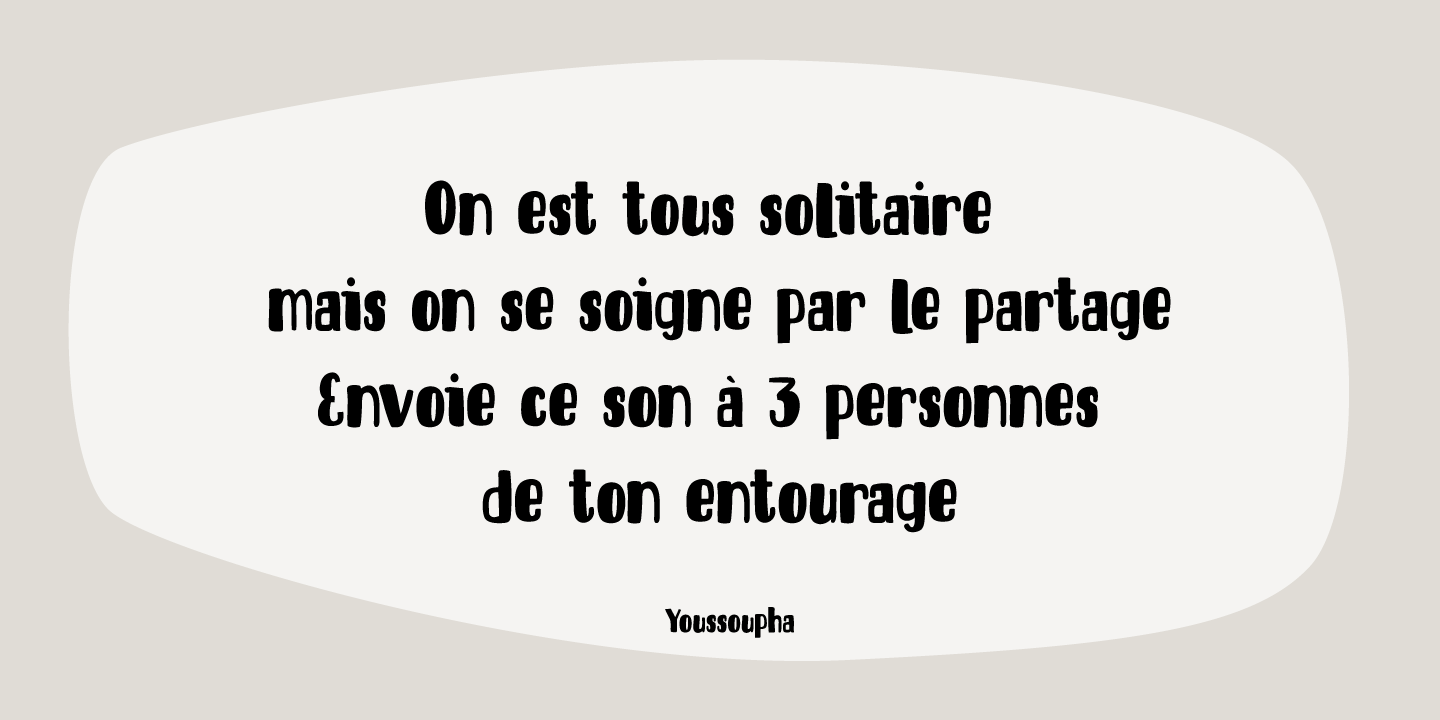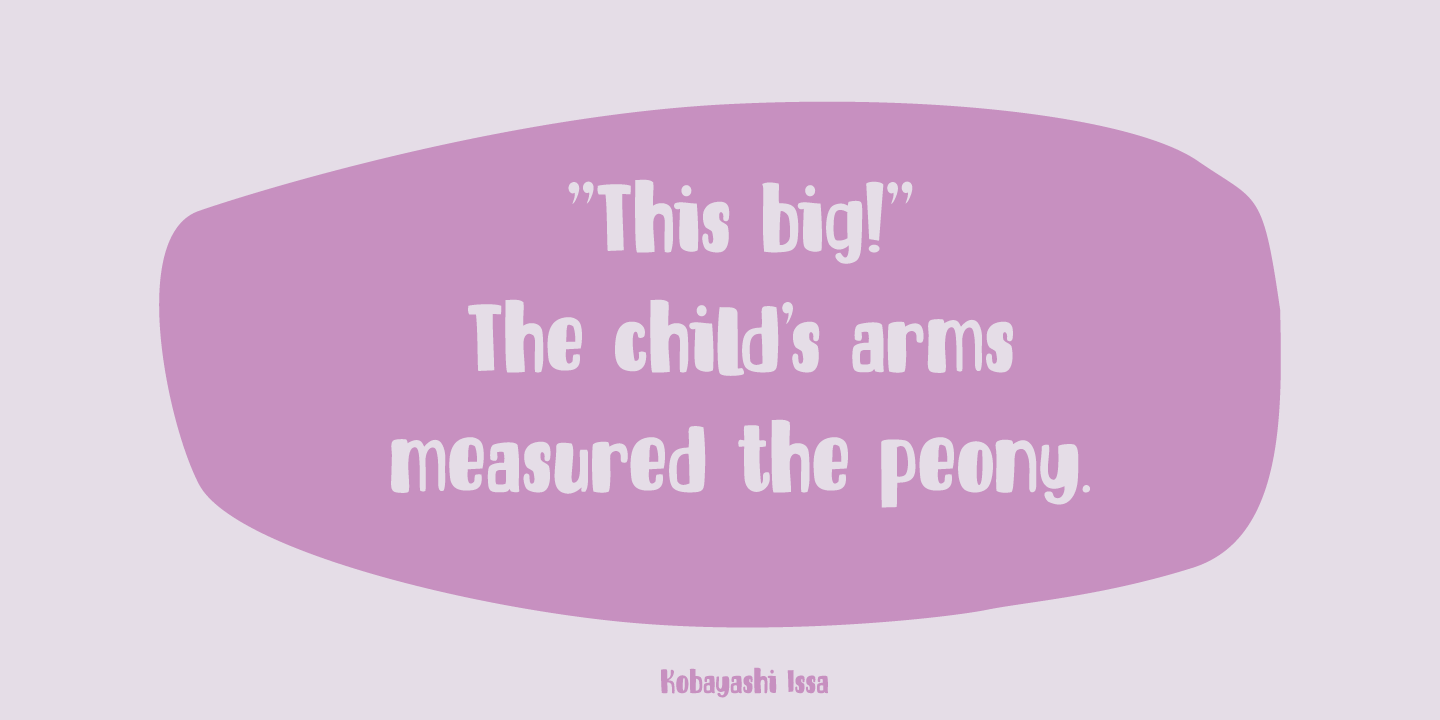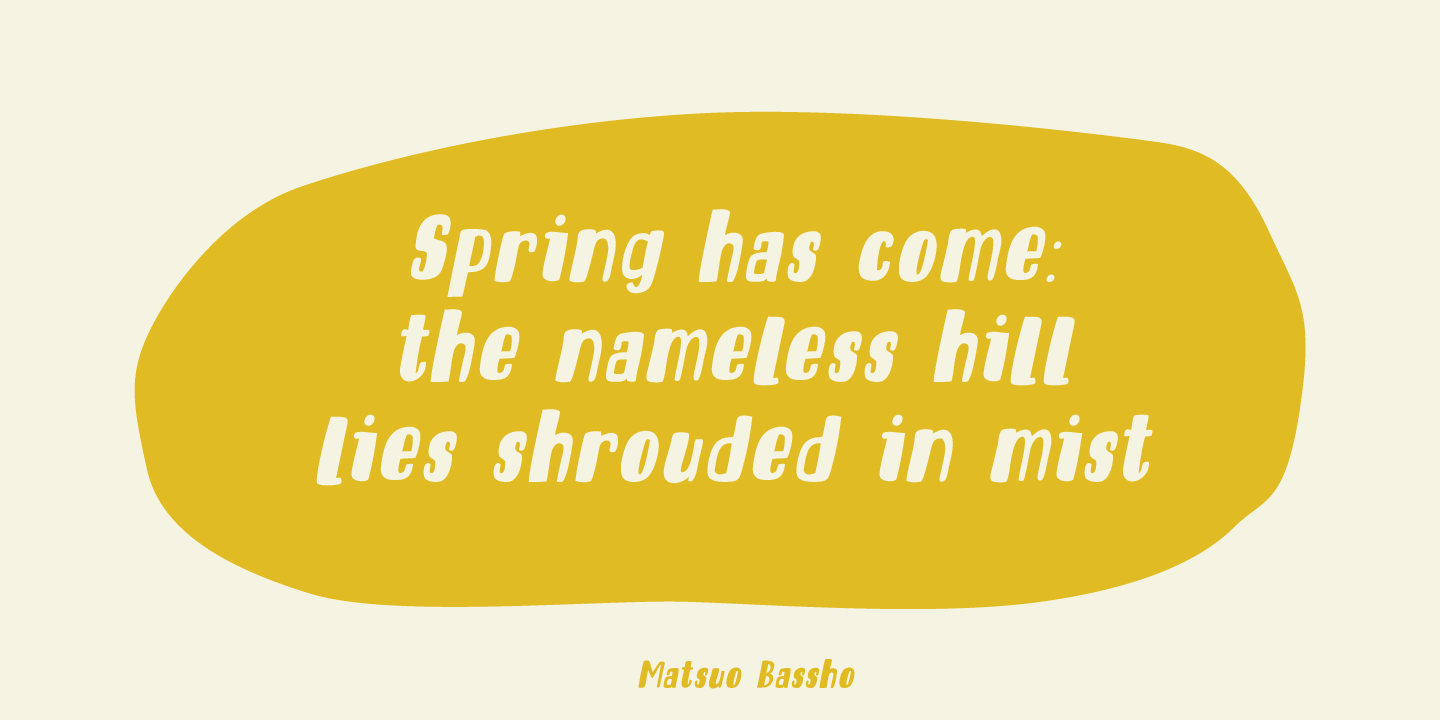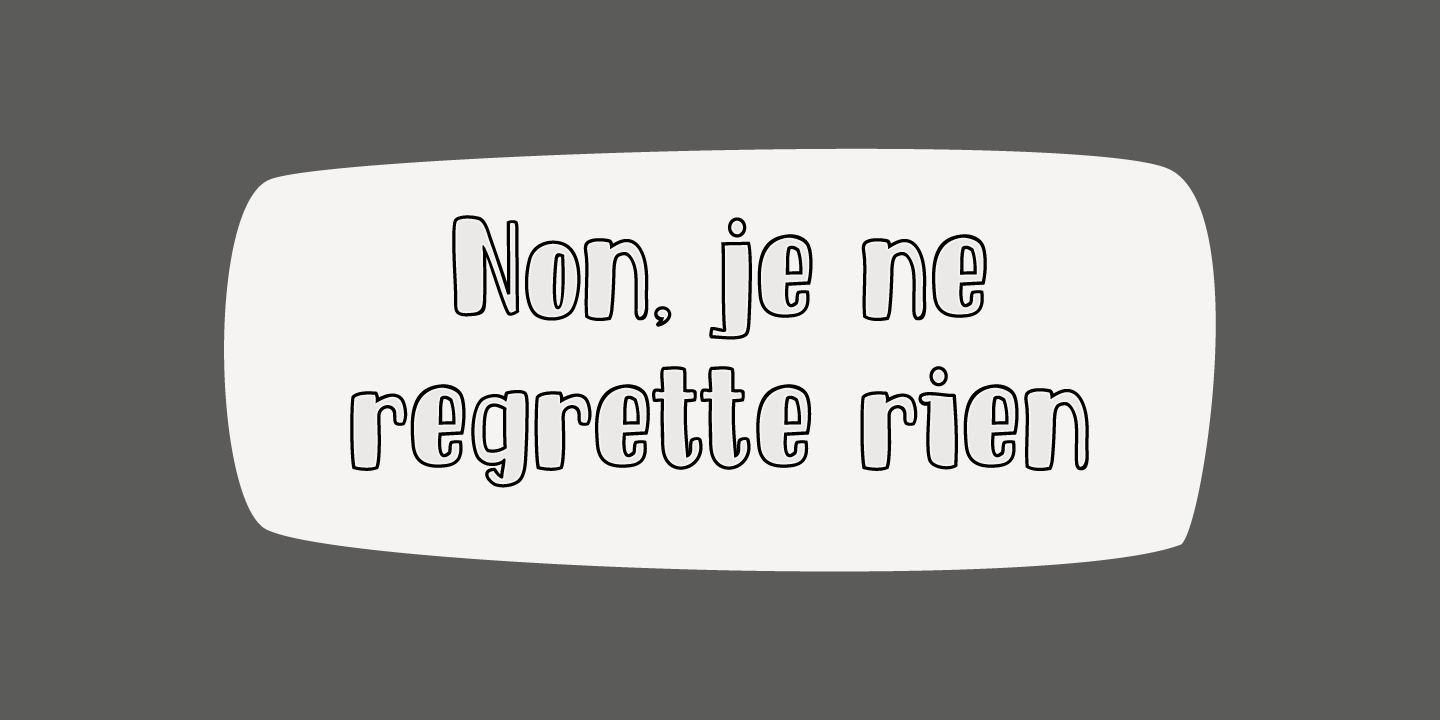
Entourage
About Entourage
Entourage is a sweet little font – rounded, quirky and cute. Entourage will shine on product packaging, posters and websites. Comes with an ?entourage? of diacritics.